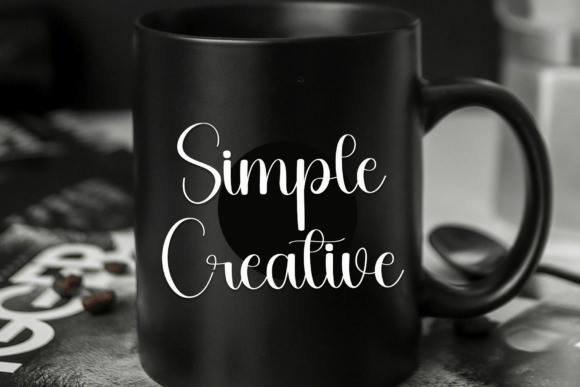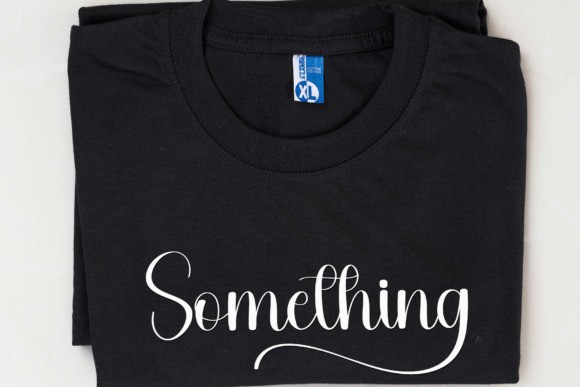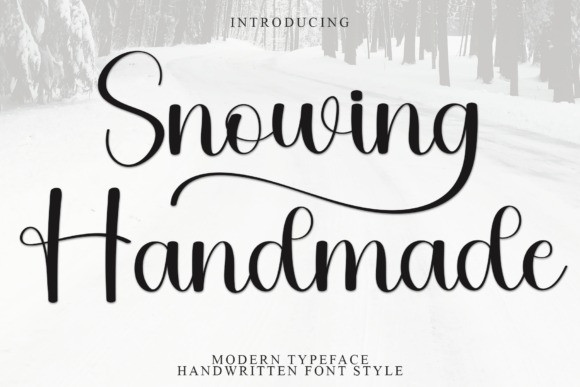
Snowing Handmade Script Font
Snowing Handmade Script Font is a charming handwritten font that feels warm and cozy, like a snowy winter day. Its playful, natural strokes make it perfect for personal projects, cards, and invitations. This font adds a touch of personality and creativity to your designs!